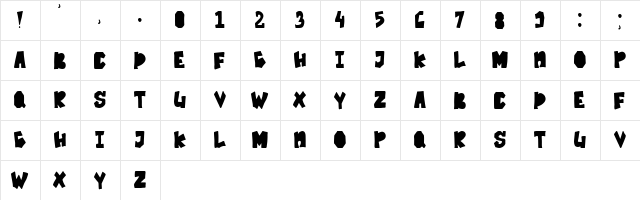
SHIPPUDEN Regular
Design Context for SHIPPUDEN Typeface
SHIPPUDEN is a composed and adaptable typeface that performs quietly and consistently across a wide range of design contexts.
Pro Tip: Use SHIPPUDEN in both headline and body roles to test its range before committing to a single application.